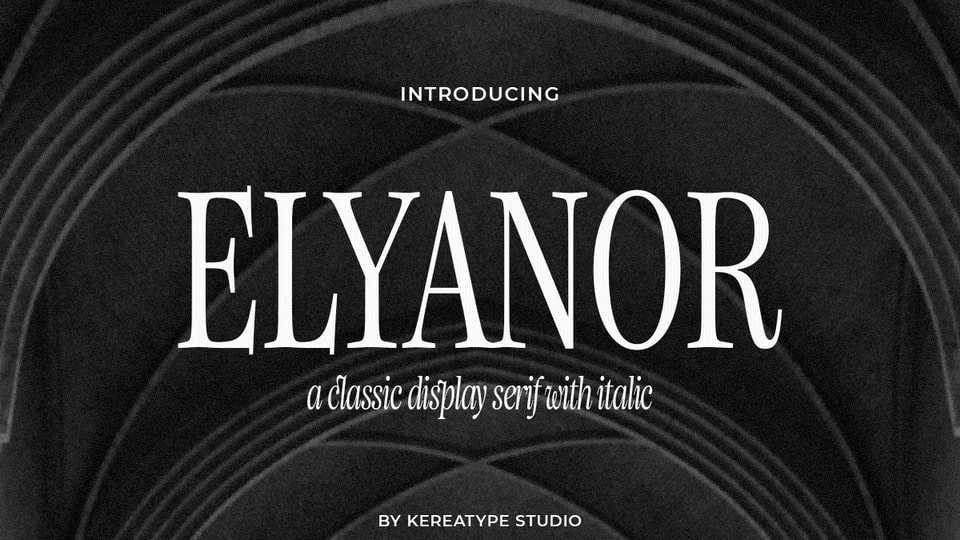
Download Elyanor font, a classic display serif typeface, drawing inspiration from French Renaissance type. Elyanor is a versatile font that offers a unique and shabby-chic aesthetic, perfect for a wide range of design projects.
Designer: Kereatype Studio